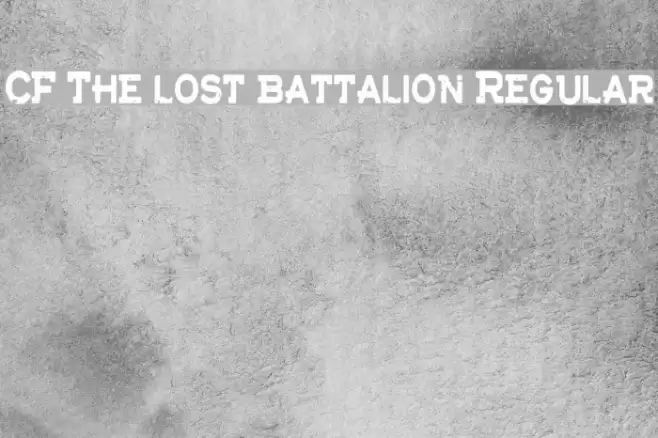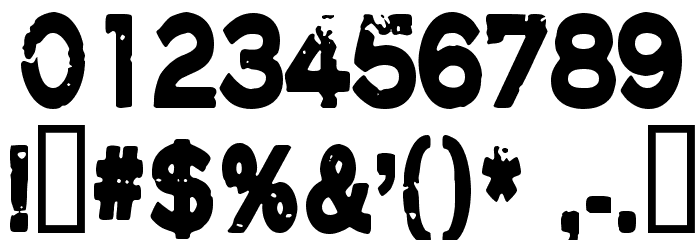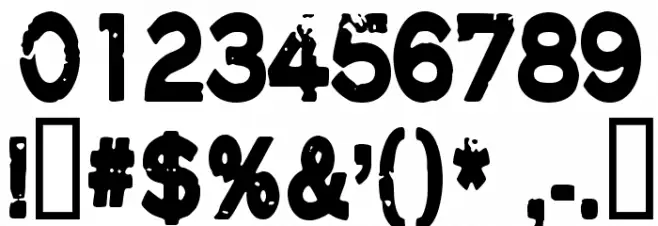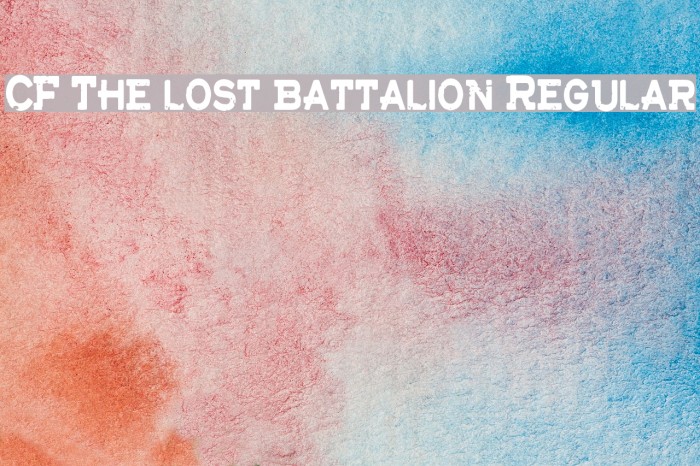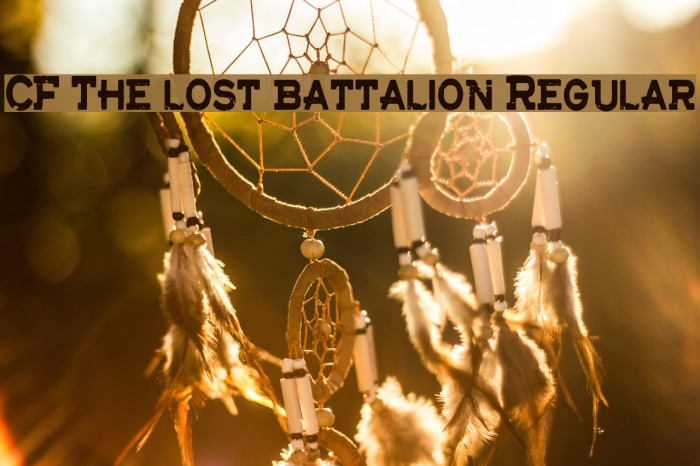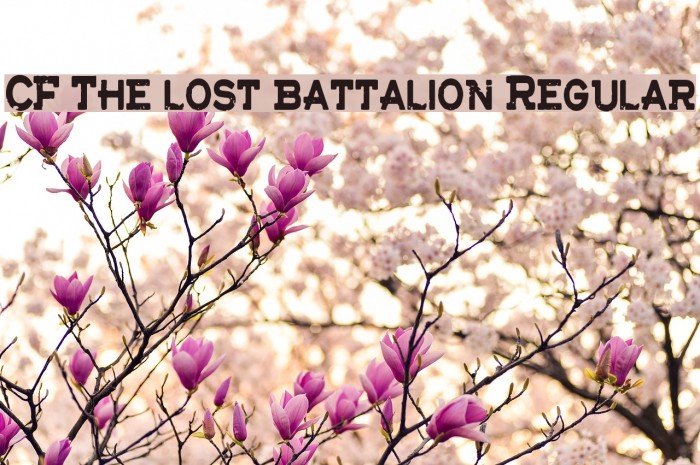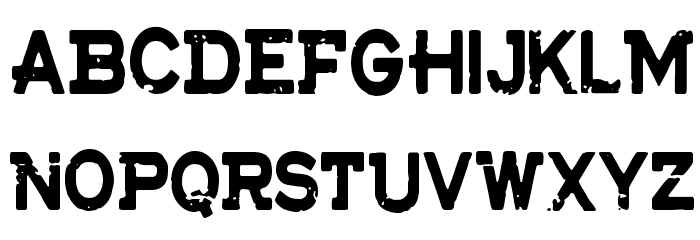
CF The lost battalion Regular Font
CF The lost battalion Regular Description
This font features a rugged, distressed style that gives it a worn and weathered appearance. The characters are bold and impactful, with irregular edges and a textured look that suggests a vintage or military-inspired theme. The uppercase letters are prominent, while the lowercase letters maintain the same distressed aesthetic. Numbers and special characters follow suit, providing a cohesive look across all glyphs. The font's unique style makes it ideal for projects that require a bold and gritty visual impact.
A bold, distressed font with a rugged, vintage appearance from Distorted Eroded fonts.
- Proposed Projects: Ideal for military-themed designs, vintage posters, album covers, and branding that requires a strong, gritty aesthetic.
- Overall Style: Vintage